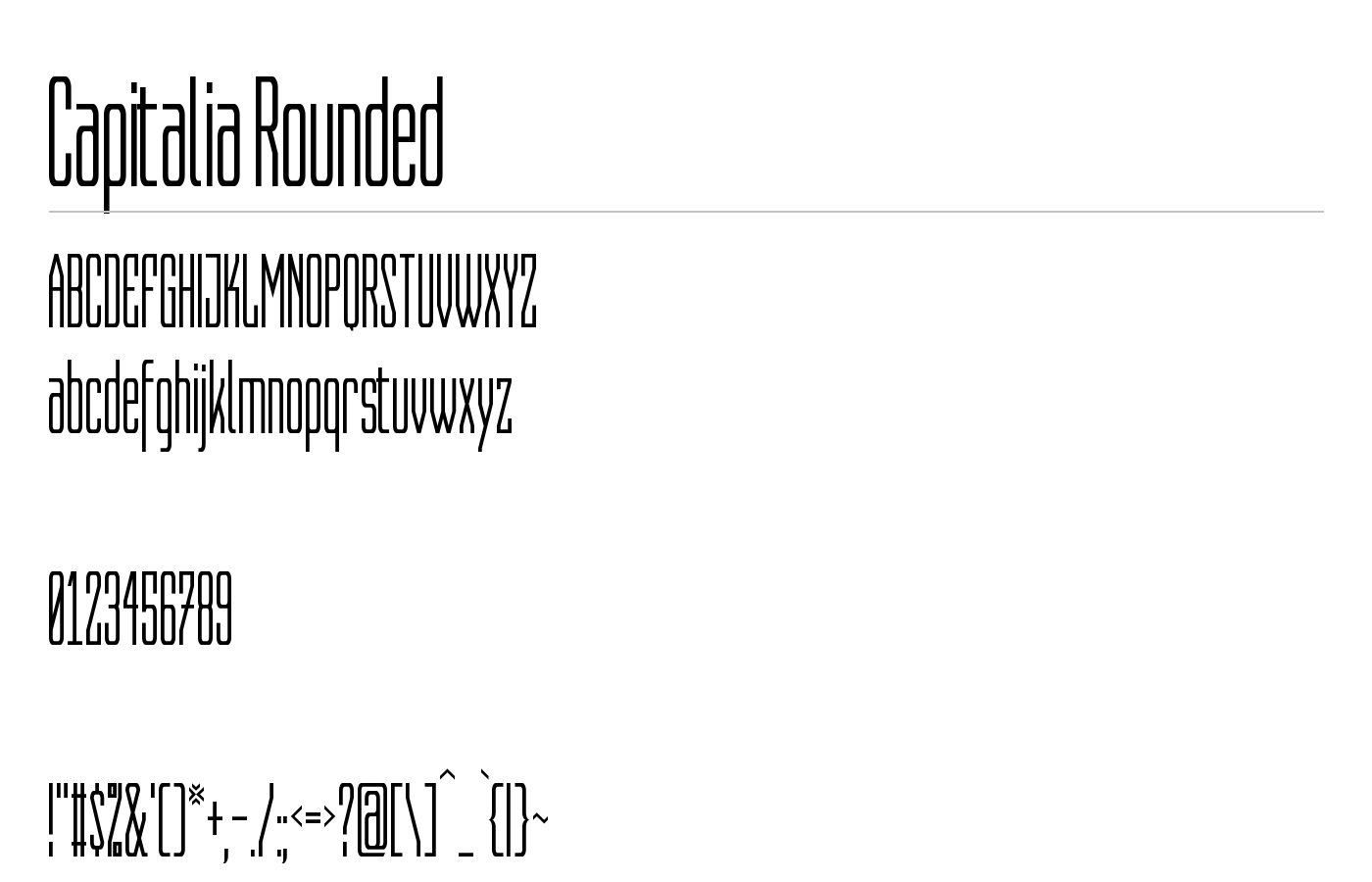
Capitalia Rounded is a tall, narrow sans serif font with smooth, rounded edges that soften its sleek, modern look. Its condensed, light weight and high x-height create a clean and elegant style, making it ideal for contemporary branding, headlines, and editorial design where a sophisticated yet approachable tone is desired. This font works well in settings that need a refined and minimalistic impression without harshness.
Capitalia Rounded Font
About Capitalia Rounded Font
| Designer | Tobias Sommer |